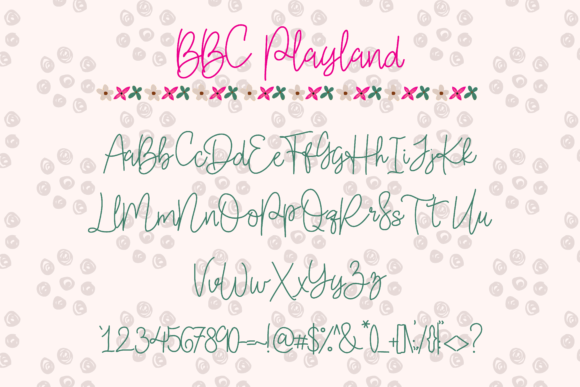
Introduction to BBC Playland Font
BBC Playland is a simple, summer-themed font that will add a special, handwritten feel to any of your design projects.
Key Features of BBC Playland Font